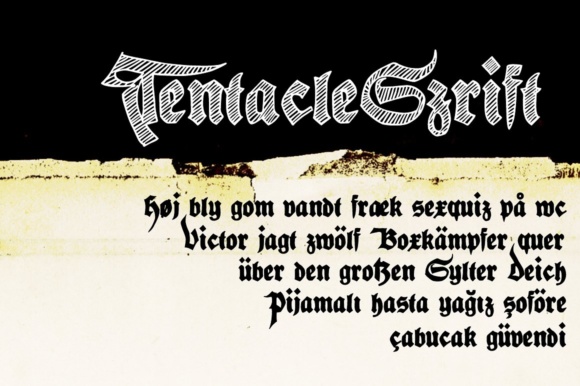
Introducing Tentacle Szrift Font, a stunning blackletter font that dances across the page like a calligrapher's masterpiece. This handwritten-style font adds a touch of elegance to any project, whether you're designing invitations, logos, or social media posts.
Embrace the flair and creativity of Tentacle Szrift. Its intricate details and flowing lines command attention, making your words leap off the page. From wedding invitations to posters, let Tentacle Szrift's beauty enhance your designs.
Immerse yourself in the artistry of Tentacle Szrift. Each character is lovingly crafted, evoking a sense of timeless elegance. Its unique ligatures and swashes create a harmonious rhythm that will leave your audience spellbound.
Tentacle Szrift is a versatile chameleon, adapting seamlessly to a myriad of projects. Whether you're crafting logos, branding materials, or website designs, Tentacle Szrift's versatility knows no bounds.
Unlock the boundless possibilities of Tentacle Szrift today and let your creativity soar to new heights. Experience the magic of this blackletter font and mesmerize your audience with your captivating designs.